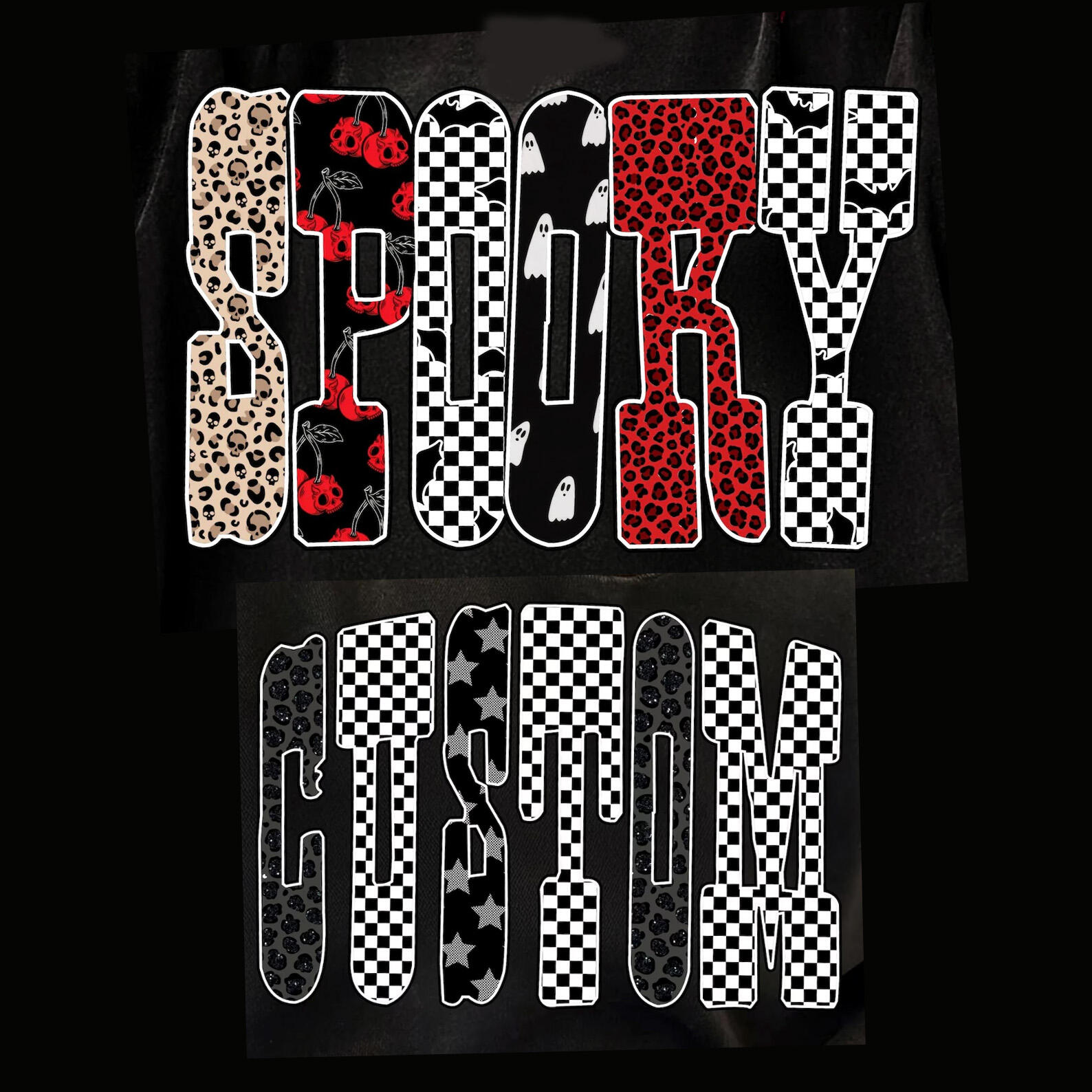
Slab Serif Condensed Heavy Sport/Western Font
I'm desperate to find this Slab Serif Condensed Heavy Sport/Western Font.
The second example has a curved top, but there is visible the letter "C" which has a very unique top of the letter and might be recognised by somebody. I'm pretty sure it's a font and it's not hand lettered.